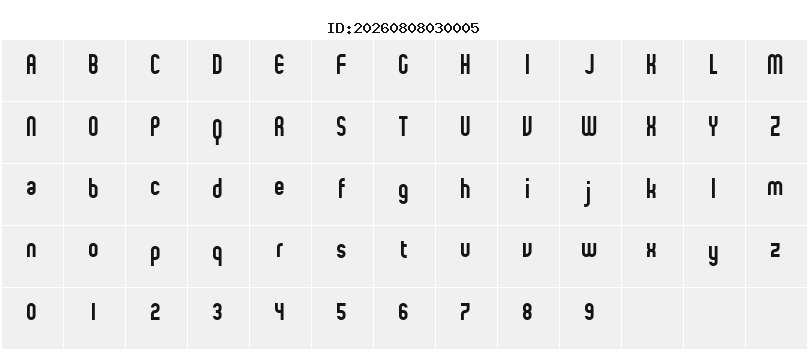
• Font Name: Proletarian
• Full Font Name: Proletarian
About Proletarian.ttf
Proletarian.ttf is a modern, elegant sans-serif font designed for ultimate readability and visual harmony. Perfect for branding, headlines, web design, and print materials.